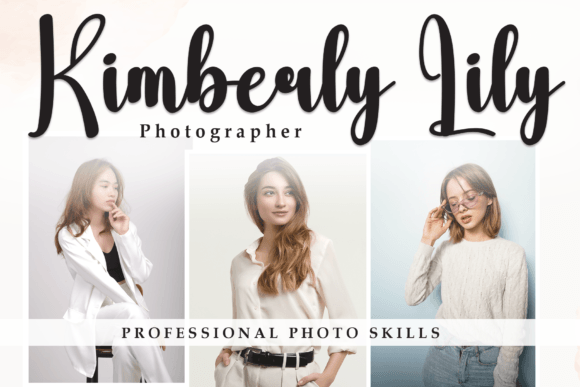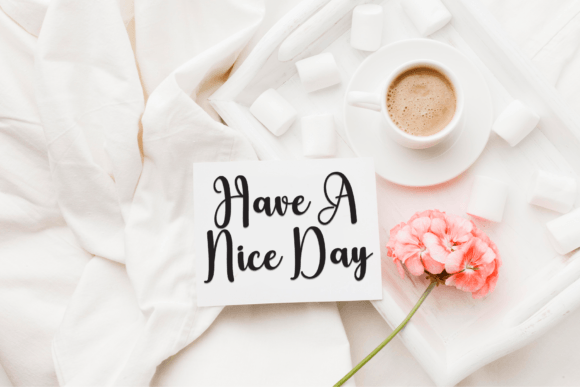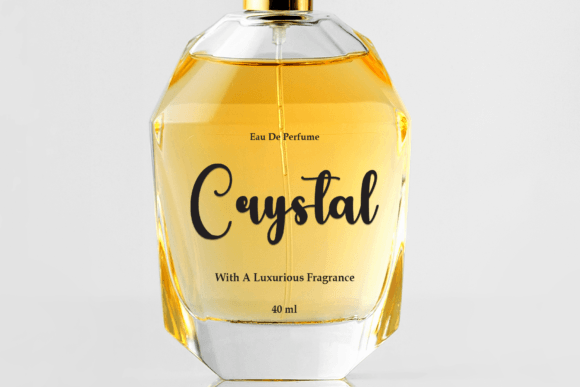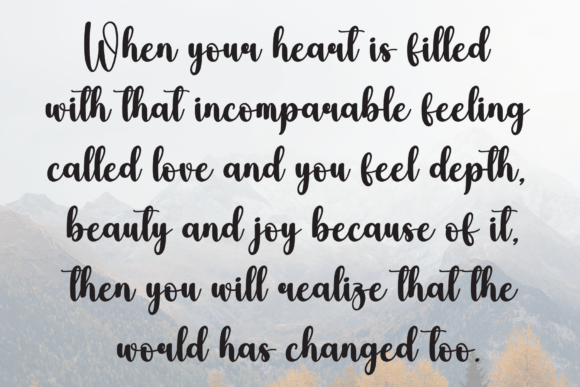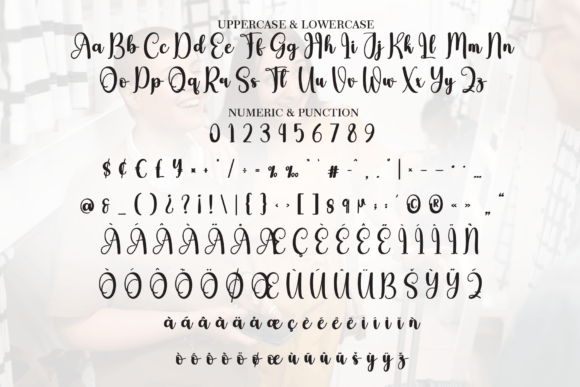
Amiable Font: The Sweet and Friendly Handwritten Display Font
Are you looking for a font that can add a touch of warmth and personality to your designs? Look no further than Amiable, a sweet and friendly handwritten display font that’s perfect for creating eye-catching and engaging content. In this article, we’ll take a closer look at Amiable and explore its features, uses, and benefits for designers and crafters.
What is Amiable Font?
Amiable is a beautiful handwritten display font that’s designed to bring a sense of fun and playfulness to your designs. With its cute and charming letterforms, Amiable is ideal for creating designs that require a personal touch, such as wedding invitations, greeting cards, and other social media graphics.
One of the standout features of Amiable is its unique and elegant handwriting style, which is both modern and classic at the same time. The font’s letters are carefully crafted to create a sense of movement and fluidity, making it perfect for designs that require a touch of sophistication and whimsy.
Key Features of Amiable Font
So, what makes Amiable font so special? Here are some of its key features:
- Handwritten style: Amiable is a handwritten display font that’s designed to look like it was written with a pen or pencil.
- Cute and fun: The font’s letterforms are playful and charming, making it perfect for designs that require a touch of whimsy.
- Elegant and sophisticated: Despite its playful nature, Amiable is also elegant and sophisticated, making it suitable for a wide range of design applications.
- Easy to read: The font’s letters are clear and easy to read, even at small sizes.
Uses of Amiable Font
So, what can you use Amiable font for? The possibilities are endless, but here are some ideas to get you started:
- Wedding invitations: Amiable is perfect for creating beautiful and elegant wedding invitations that will set the tone for your special day.
- Greeting cards: The font’s playful and charming nature makes it ideal for creating greeting cards for birthdays, holidays, and other special occasions.
- Social media graphics: Amiable is perfect for creating eye-catching social media graphics that will help you stand out from the crowd.
- Logos and branding: The font’s unique and elegant style makes it suitable for creating logos and branding materials that require a touch of personality.
Benefits of Using Amiable Font
So, why should you use Amiable font for your designs? Here are some benefits:
- Unique and eye-catching: Amiable is a unique and eye-catching font that will help your designs stand out from the crowd.
- High-quality: Amiable is a high-quality font that’s designed to produce crisp and clear results, even at small sizes.
- Versatile: The font is versatile and can be used for a wide range of design applications, from wedding invitations to social media graphics.
In conclusion, Amiable font is a sweet and friendly handwritten display font that’s perfect for designers and crafters who want to add a touch of personality to their designs. With its cute and charming letterforms, elegant handwriting style, and versatility, Amiable is ideal for creating eye-catching and engaging content that’s sure to delight your audience.
Whether you’re creating wedding invitations, greeting cards, or social media graphics, Amiable font is a great choice. So why not give it a try and see how it can elevate your designs to the next level?